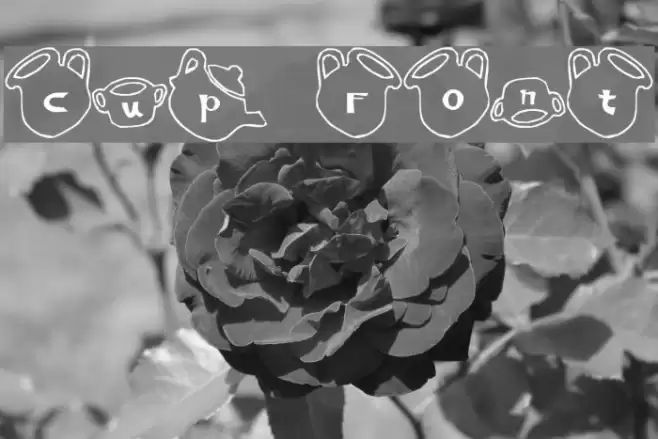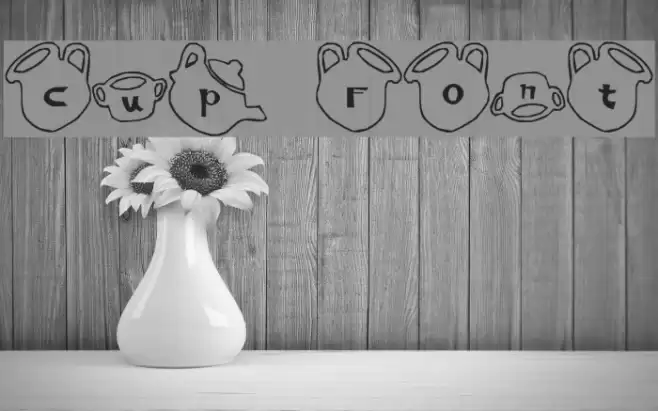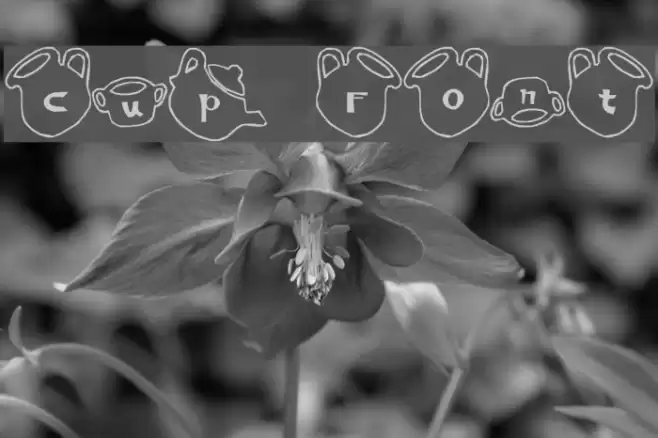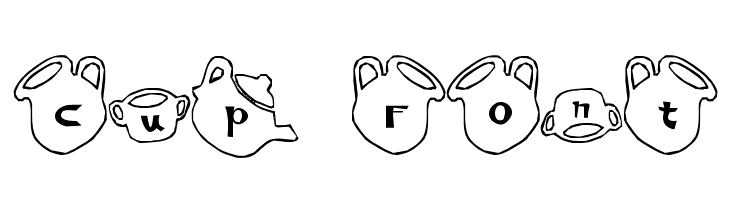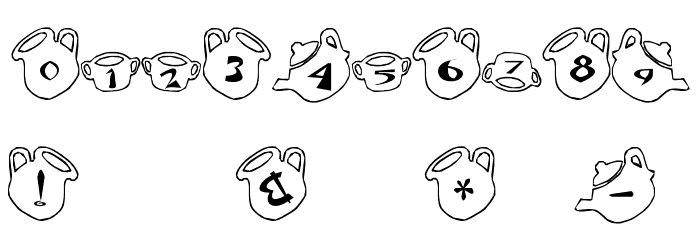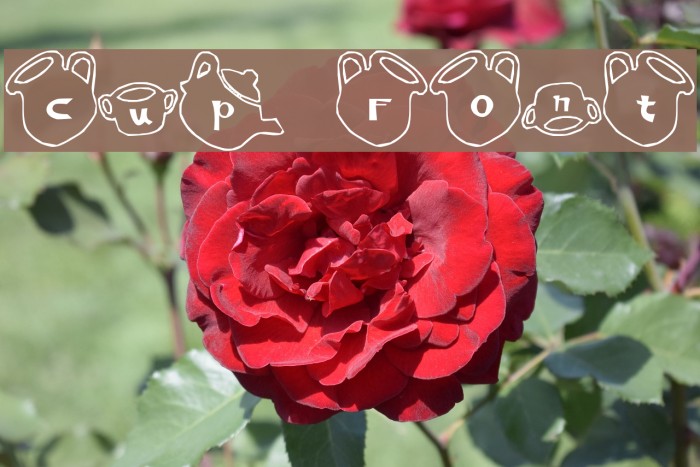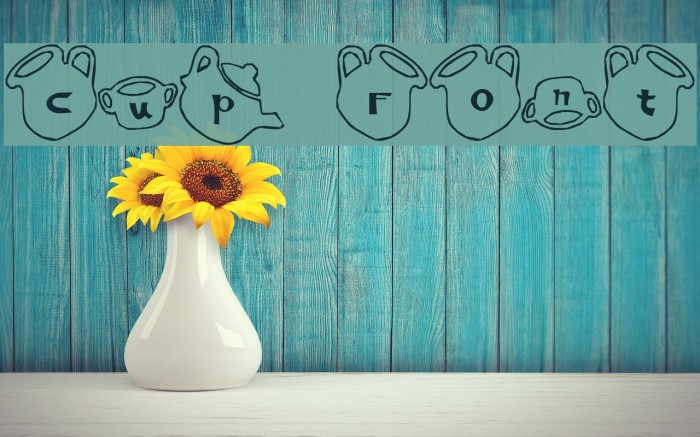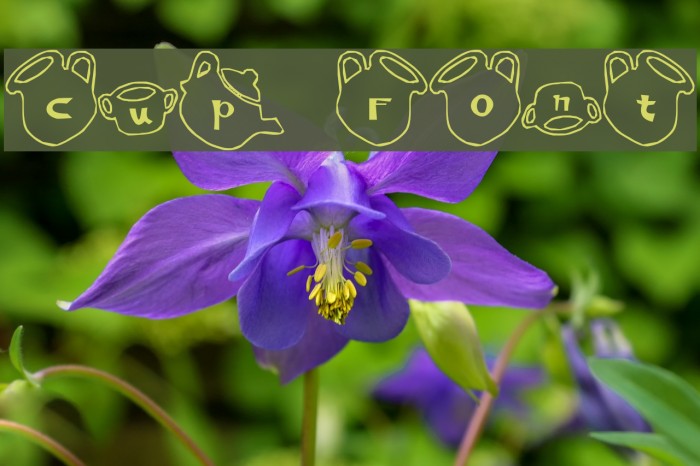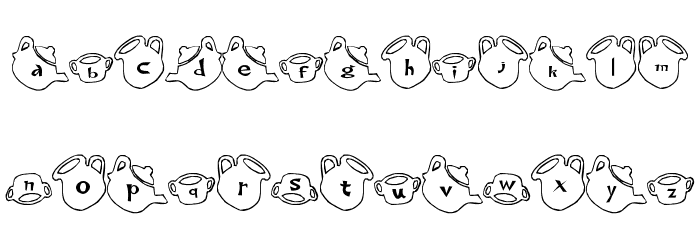
cup Font Font
cup Font Description
This playful and whimsical font features each character inside a stylized cup, creating a unique and fun visual appeal. The letters and numbers are encased within the outline of a cup, giving the font a distinctive and quirky personality. The design is consistent across uppercase, lowercase, and numerical characters, maintaining the cup motif throughout. This font is ideal for projects that require a lighthearted and creative touch, such as children's books, playful branding, or themed event invitations. The characters are evenly spaced, ensuring readability while maintaining the decorative style.
A whimsical font with characters encased in cup shapes, perfect for playful designs from Images & Symbols fonts.
- Proposed Projects: Ideal for children's books, playful branding, themed event invitations, and creative posters.
- Overall Style: Playful